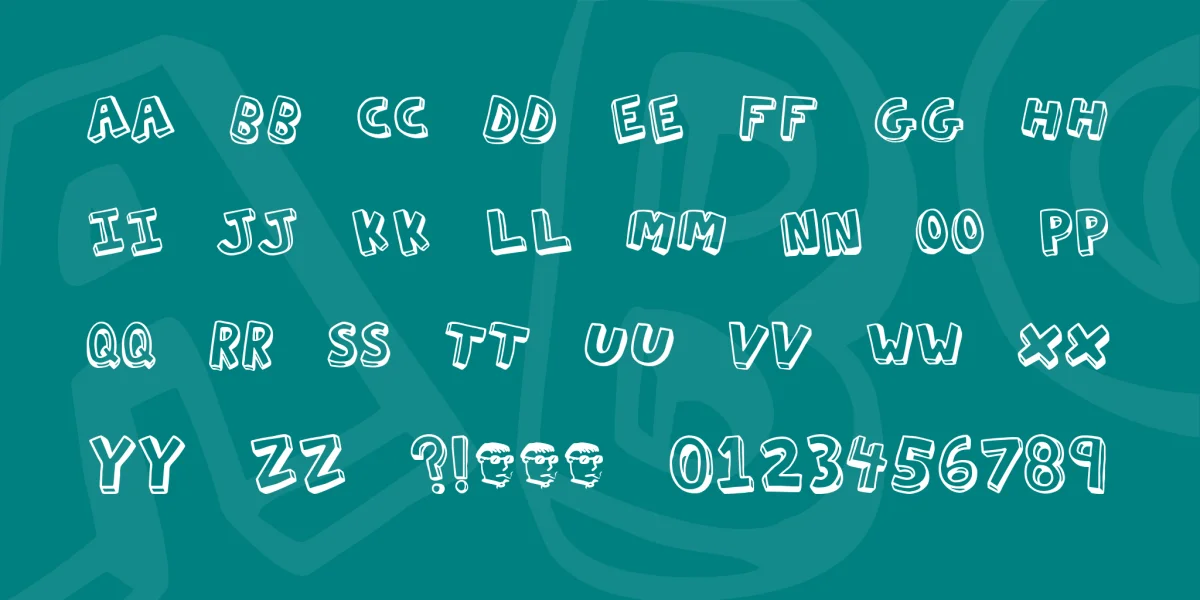
(Caps/Lower [same], numbers, some Punctuation, some special). This is a sort of comic book action font. The letters are rotated and lit differently to give a dynamic feel. Hey! I'm back at school! Expect more fonts and Notebook Pages soon. I'm off to the track now ... Enjoy!